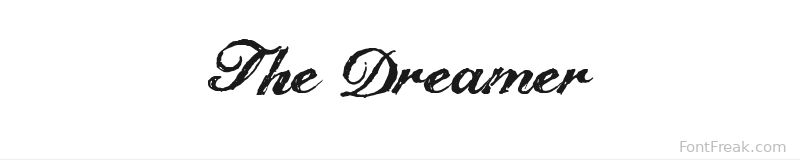
The Dreamer
About The Dreamer
The Dreamer by Billy Argel Fonts is a captivating script typeface that exudes elegance and charm. This font features fluid, cursive strokes that create an inviting and whimsical aesthetic. The graceful lines and moderate contrast between thick and thin strokes give it a classic yet contemporary feel, making it a versatile choice for various design projects. The spacing is well-balanced, allowing for legibility while maintaining its artistic flair. Decorative elements, such as the flowing curves and stylish ligatures, further enhance its visual appeal, making it a standout option for creative work.
Ideal for wedding invitations, The Dreamer font adds a touch of romance and sophistication to any nuptial announcement. Its enchanting style also makes it perfect for movie posters, where a dreamy theme is essential. Additionally, this font works beautifully for restaurant menus, particularly those with a focus on fine dining or artisanal offerings, where it can evoke a sense of culinary artistry. Content creators will find it beneficial for blog headers and social media graphics, as it captures attention and conveys a sense of creativity and passion.
What sets The Dreamer apart is its ability to blend artistic beauty with functionality. It not only serves as a visual element but also evokes emotion, making it a perfect choice for projects that require both elegance and a personal touch. This font is more than just letters; it’s an expression of creativity that leaves a lasting impression.